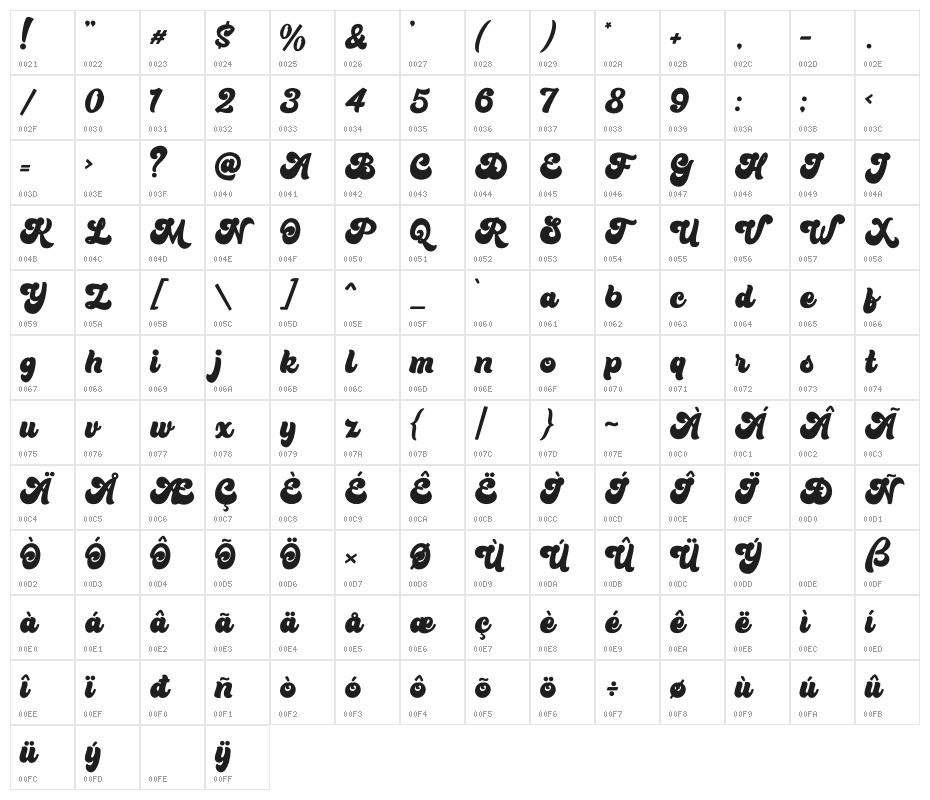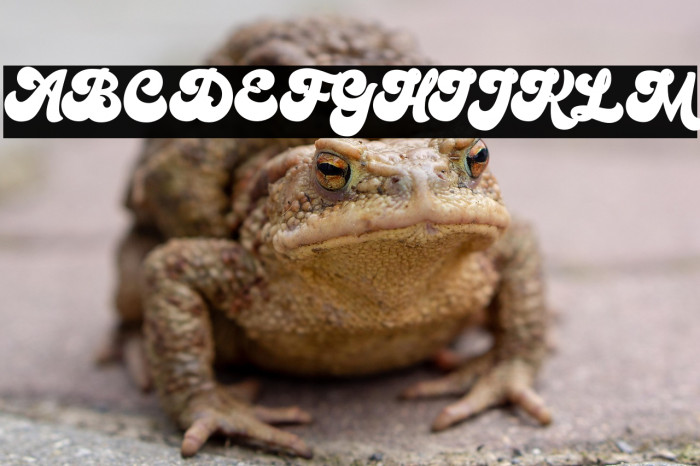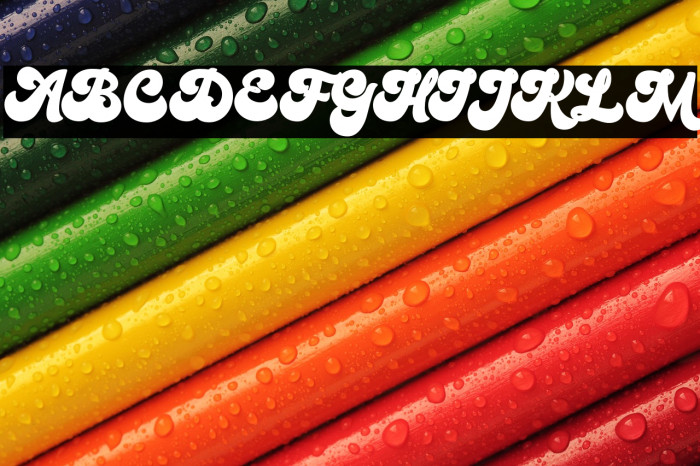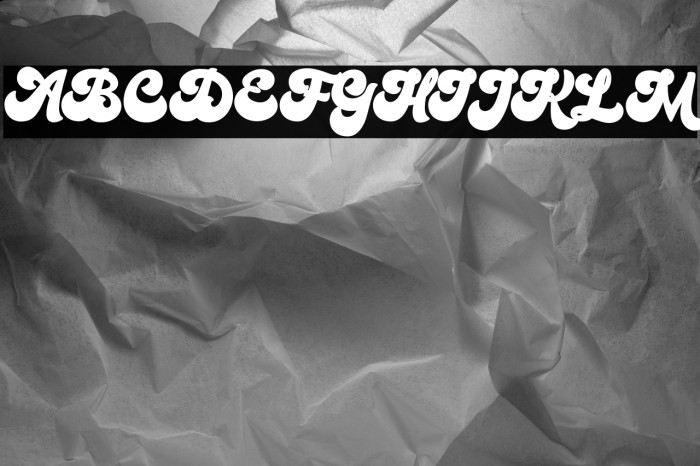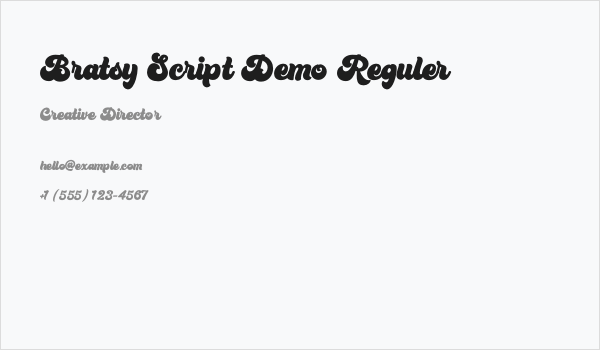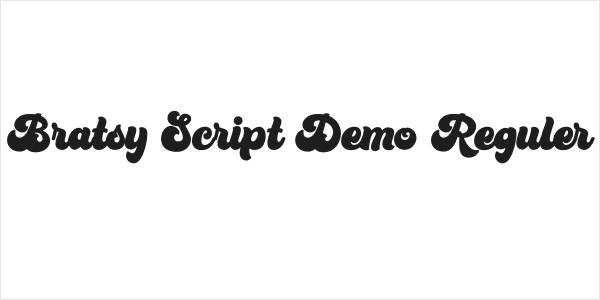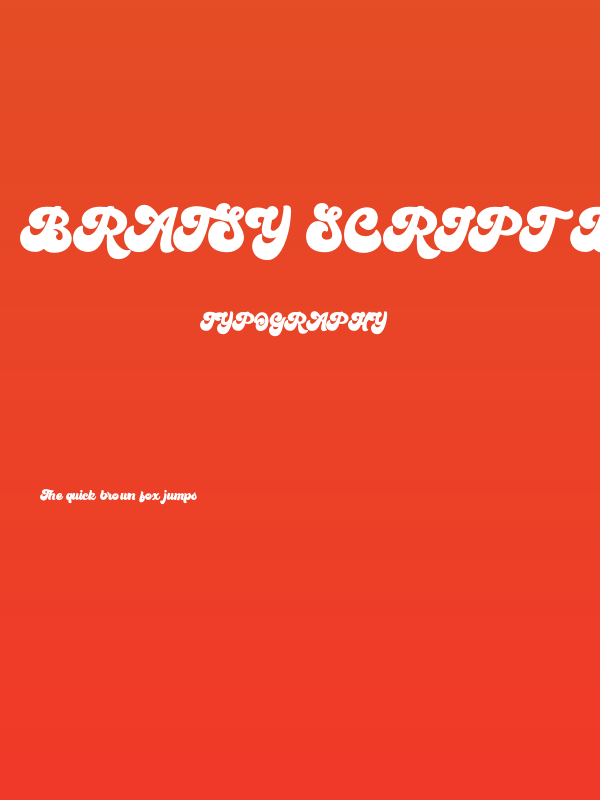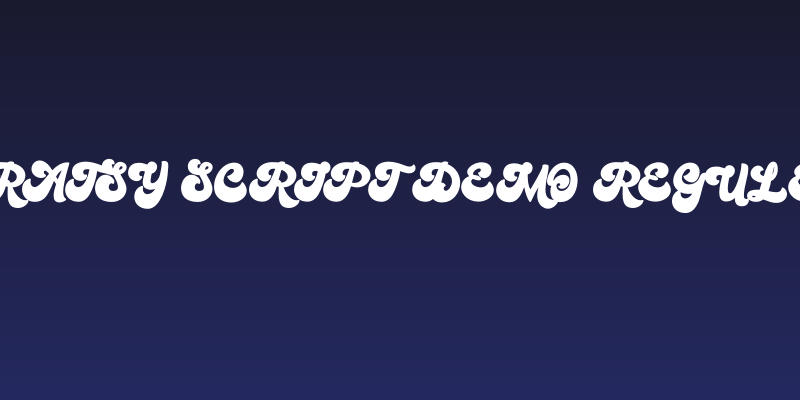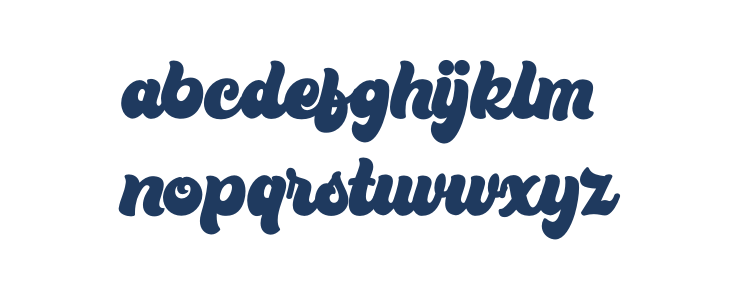
Bratsy Script Demo Reguler Font
| 用途 | Logos, Headlines, Invitations |
| おすすめプロジェクト | Ideal for greeting cards, invitations, playful branding, and social media graphics. |